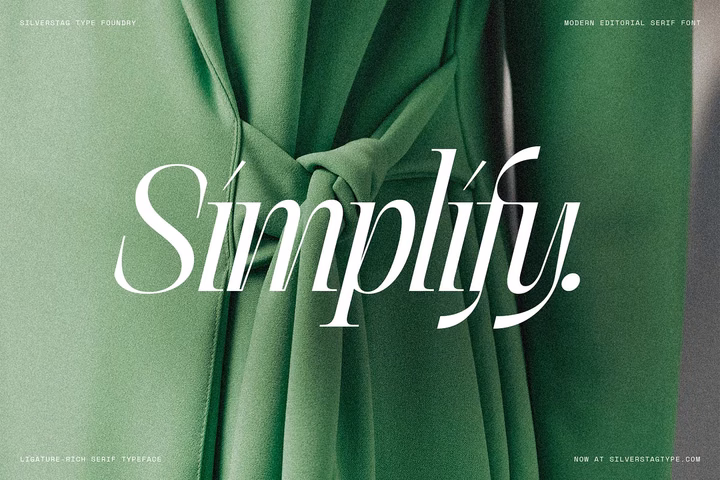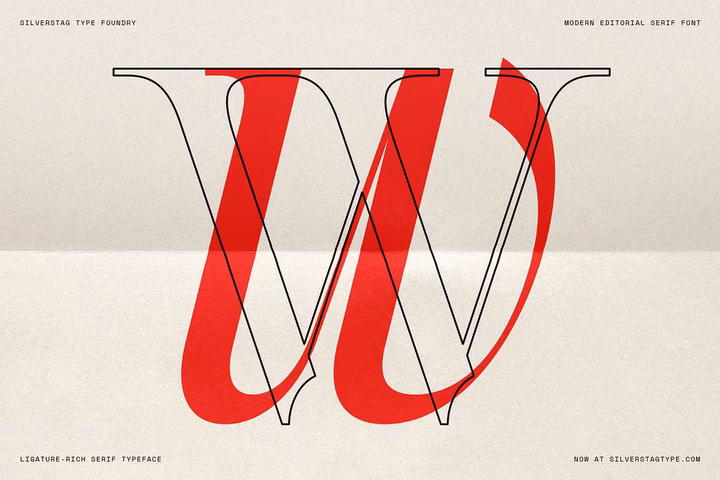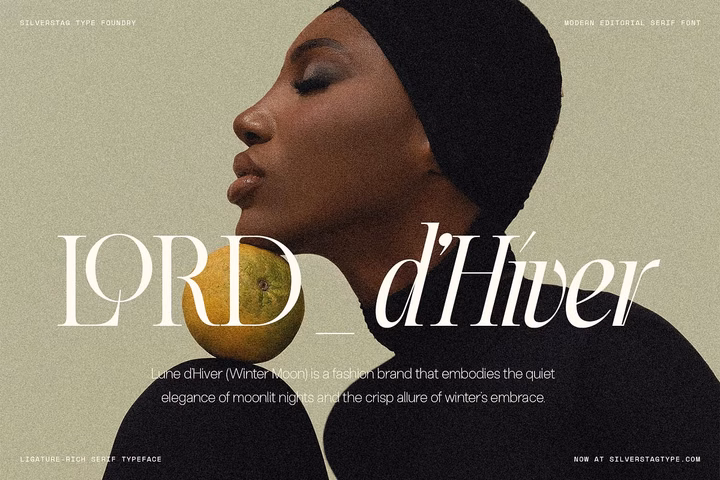
Meet SLTF The Elfkin Editorial, a refined and versatile serif font crafted to elevate your editorial designs, branding projects, and creative layouts. With an elegant structure, graceful contrast, and a distinctively expressive italic, Elfkin adds personality and a touch of drama to your typography work.
This typeface isn’t just about style – it’s packed with function. Over 80 alternate characters and ligatures let you experiment and refine your headlines, logos, and long-form content with ease. Whether you’re designing for magazines, book layouts, personal branding, or social media graphics, Elfkin delivers a timeless yet contemporary flair.
What sets The Elfkin Editorial apart is its italic version – full of life, movement, and emotion. It’s ideal for adding emphasis or romantic detail without losing clarity. Every letterform has been thoughtfully drawn to maintain strong rhythm and balance, even in tight settings or large sizes.
The font supports 100+ languages, includes complete punctuation, and is delivered in both OTF and webfont formats. Perfect for designers who want a typeface that’s polished, adaptable, and filled with character.
Bring a sense of storytelling, elegance, and sophistication into your design work with SLTF The Elfkin Editorial – a font that looks as good in print as it does on screen.